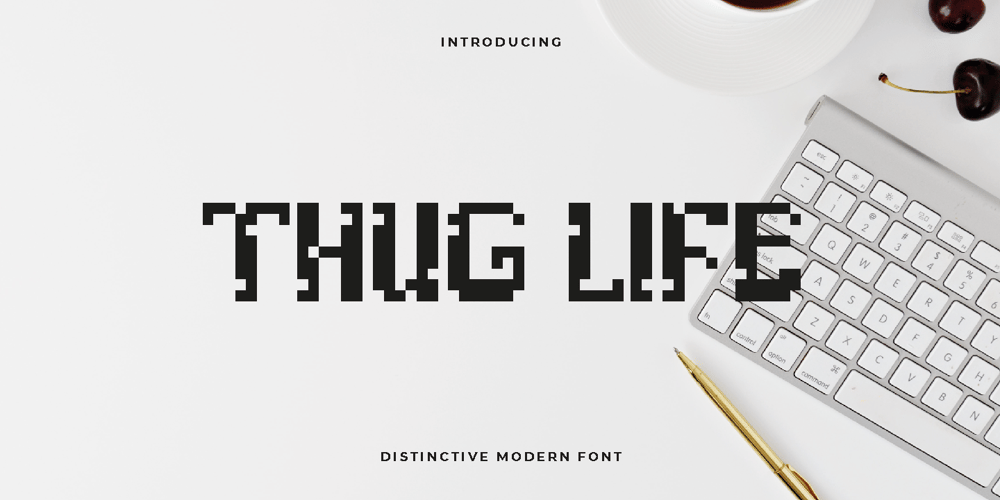
Thug Life Font Family was designed by Alde Saputro and published by Aldedesign. Thug Life contains 2 styles and family package options. Thug Life is a cool and high-tech display font. Created out of pixels, this font will look both futuristic and interestingly on each of your gaming designs. It is PUA encoded which means you can access all of the glyphs and swashes with ease!